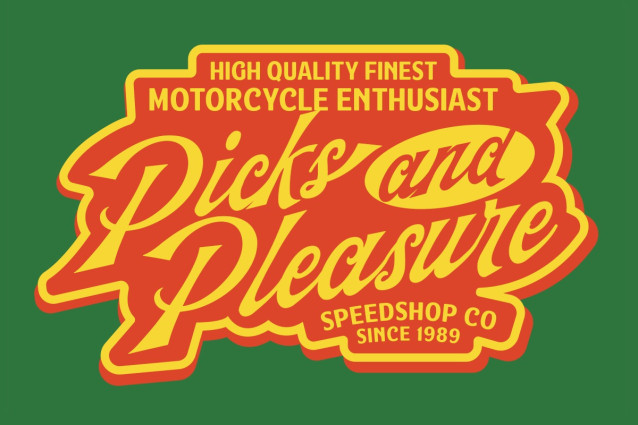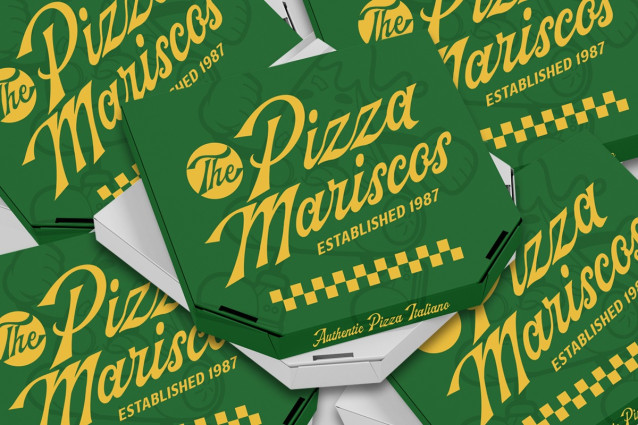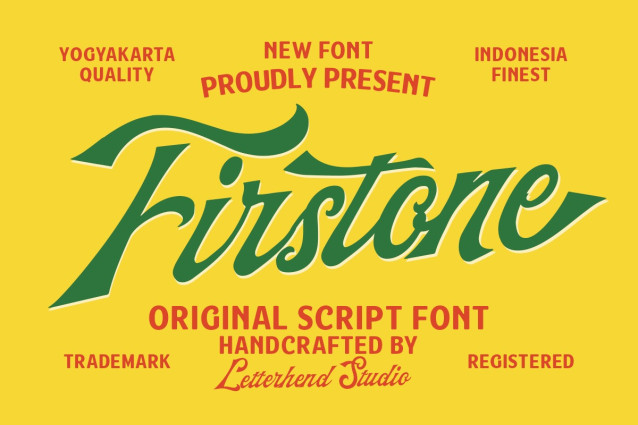
Firstone Script Font
Firstone Script Font is a bold and lively original script font with a handcrafted feel, perfect for projects that need energy, character, and a touch of vintage charm. Its smooth curves and confident strokes draw inspiration from classic sign painting, making it ideal for logos, retro packaging, posters, signage, and headlines.